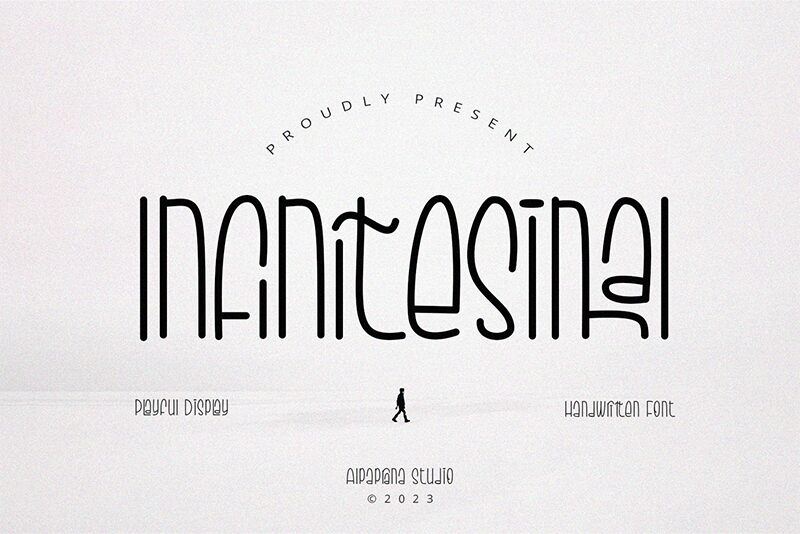
Infinitesimal font family is a quirky elegant handwriting free font, carefully designed by Alpaparna Studio. The resource includes two font styles, each carrying a minimalistic, whimsical, and artistic attitude. Its loose and fun handwriting carries a touch of modern sophistication that will elevate and give character to any branding and editing project.
The Infinitesimal font family is the perfect fit for contemporary applications in creative industries, where uniqueness and creativity are sought after. These include branding, logo, editorial, social media, and website design. When used, it adds a touch of wit, in addition to its indefinite personality, where alternatives and stylistic sets become a game of their own.